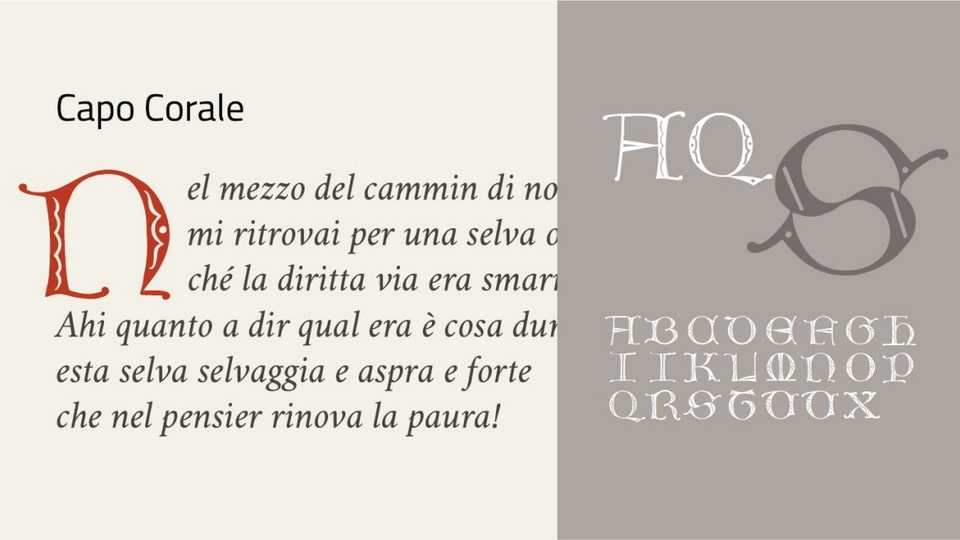
Download Capo Corale font, a decorative typeface inspired by the historic drop caps of the Gotico Corale font, as featured in the Paleografia artistica di Montecassino (1876).
Designer: Michele Casanova